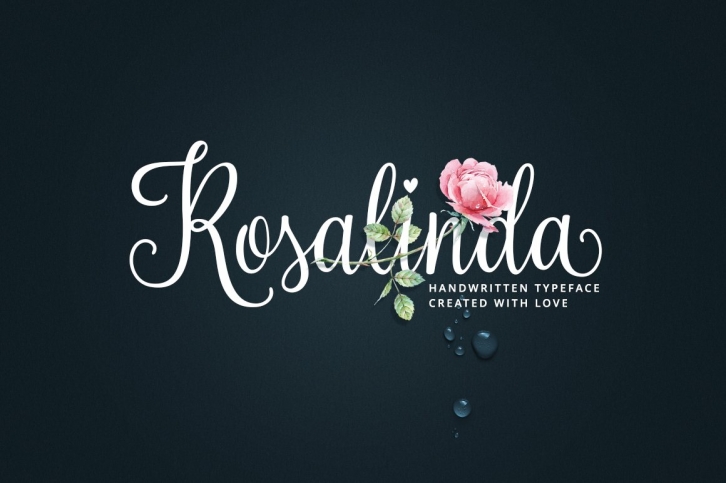
Rosalinda is a new handwritten typeface designed with wedding invitations in mind but can be used for various purposes like t-shirt design, logos, quotes design etc. The font contains 900+ characters and is best used in an Opentype-aware application such as Adobe Illustrator, Adobe InDesign, MSWord, Adobe Photoshop etc.
For those of you who prefer working with separate fonts to get a "swashy" look rather than using OpenType features, I've added 4 fonts that mimic different letter styles in the main font. Please note that not all characters are presented in these additional fonts but only the ones that have the style.
Note: The main font - Rosalinda Script - has all this features embedded so it all still works through Open Type panel of your application.